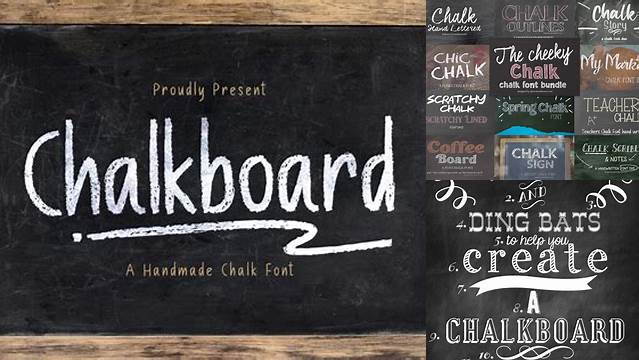
Download Free Chalk Fonts For Commercial Use
Hey everyone! Are you looking for some awesome free chalk fonts that you can use for your commercial projects? You've come to the right place! Finding the perfect font can be a real game-changer, adding that special touch to your designs. Whether you're working on a website, a logo, or even a social media post, the right font can make all the difference. And who doesn’t love a good, free resource, especially when it comes to fonts? This guide will walk you through everything you need to know about snagging some fantastic free chalk fonts that are ready for commercial use. Let’s dive in and find the perfect chalk font to elevate your designs! Using the right font can make a huge difference in your project.
What Exactly Makes a Chalk Font Great?
Alright, let's talk about what makes a chalk font truly stand out. When we're on the hunt for the best, we're looking for a few key things. First off, a great chalk font needs to nail that authentic chalky look. It should feel like it was actually written on a chalkboard, with those little imperfections and textures that give it that handcrafted vibe. Think about the subtle variations in line thickness, the slight rough edges – those are the details that make it pop.
Secondly, readability is key. While we love the artistic flair of a chalk font, it still needs to be easy to read, especially in smaller sizes or when used in longer blocks of text. A font that’s too elaborate can be a nightmare for your audience. You want people to instantly understand your message, without having to squint or struggle to decipher the letters.
And finally, let’s consider the versatility of the font. A great chalk font can be used across various projects – from websites and social media graphics to print materials and even product packaging. It should be flexible enough to adapt to different design styles and still look amazing. When choosing the perfect font for commercial use, all these elements must be considered. The design will set the tone of your project.
Where to Find Awesome Free Chalk Fonts for Commercial Use
Choosing the Right Chalk Font for Your Project
Choosing the right chalk font for your project can make or break your design, guys. You want it to look good and grab your audience’s attention. Here's a quick guide to help you.
Consider Your Brand: Every font has a personality. Make sure the font matches your brand identity. A playful and quirky chalk font would be perfect for a kid's brand, but not for a law firm.
Conclusion: Embrace the Charm of Free Chalk Fonts for Commercial Use
There you have it, guys! We've covered everything you need to know about finding and using free chalk fonts for commercial use. From finding the right resources to understanding licensing and mastering design techniques, you're now equipped to create stunning designs. Remember to have fun and let your creativity flow. These fonts are your creative friends! Go out there and use these fonts to make something incredible. With these fonts, you'll be creating designs that grab attention. So, what are you waiting for? Start downloading those fonts and get creating! Your designs will be a total hit!